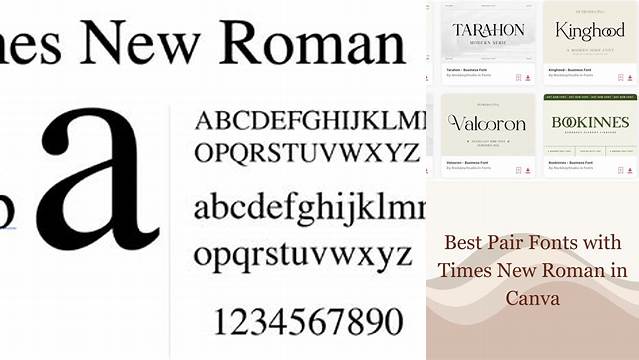
Best Free Fonts: Alternatives To Times New Roman
Finding the perfect font can sometimes feel like searching for a needle in a haystack, especially when you're aiming for that classic, timeless vibe similar to Times New Roman. Guys, let's be real, Times New Roman has been a staple for ages – from formal documents to printed books. But what if you're looking for something free that carries the same elegance and readability? Well, you're in luck! We’re diving deep into the world of free fonts that capture the essence of Times New Roman without costing you a dime. These fonts are not only accessible but also versatile, suitable for various projects ranging from professional reports to creative designs. Choosing the right font can significantly impact how your content is perceived, making it crucial to explore alternatives that offer both aesthetic appeal and functional readability. Whether you're a student, a professional, or a design enthusiast, having access to a range of high-quality, free fonts is invaluable. So, buckle up as we explore some fantastic options that will help you achieve that classic, sophisticated look without breaking the bank. Remember, the goal is to find fonts that not only mimic the style of Times New Roman but also offer unique characteristics that can enhance your overall design. Let's get started and discover the best free alternatives that will elevate your typography game!
Why Look for Alternatives to Times New Roman?
Okay, so Times New Roman is a classic, no doubt about it. But why even bother looking for alternatives? There are several reasons, and let's break them down. First off, while Times New Roman is widely available, it's good to have options. Relying solely on one font can make your work look generic. Exploring different fonts allows you to add a touch of originality and personality to your projects. This is especially important in fields like graphic design and marketing, where standing out from the crowd is essential. Moreover, some argue that Times New Roman, due to its ubiquity, has become somewhat overused and lacks a certain freshness. Finding a similar font can give your text a familiar yet updated feel. Plus, different fonts have different strengths. Some fonts might be more readable on screens, while others might look better in print. Depending on your specific needs, an alternative to Times New Roman might actually be a better fit. Also, let's not forget about licensing. While Times New Roman comes pre-installed on many systems, using it in commercial projects might have certain restrictions. Opting for a free and open-source font eliminates these concerns, giving you the freedom to use it however you like without worrying about legal issues. So, whether you're aiming for a fresh look, better readability, or simply more creative control, exploring alternatives to Times New Roman is a smart move. It's all about expanding your typographic toolkit and finding the perfect font that aligns with your vision and goals.
Key Characteristics of Times New Roman
Before we dive into the alternatives, let's pinpoint what makes Times New Roman so recognizable. Understanding its key characteristics will help you identify fonts that share its fundamental qualities. Times New Roman is primarily a serif font, meaning it has small decorative strokes (called serifs) at the end of each character. These serifs contribute to its readability, especially in large blocks of text, by guiding the eye along the lines. The font also has a relatively high contrast between thick and thin strokes, which adds to its visual appeal and clarity. Another defining feature is its relatively condensed letterforms, meaning the letters are narrower compared to some other fonts. This allows more text to fit on a page, which was particularly important when it was designed for newspaper printing. Furthermore, Times New Roman has a formal and traditional appearance, making it suitable for academic papers, legal documents, and other serious contexts. Its x-height (the height of the lowercase letters) is moderate, contributing to its overall balance and readability. In summary, the key characteristics of Times New Roman include its serif design, high contrast, condensed letterforms, formal appearance, and moderate x-height. When looking for alternatives, keep these elements in mind to ensure you find a font that captures the essence of Times New Roman while offering its own unique flair. By focusing on these characteristics, you can effectively narrow down your options and discover fonts that meet your specific needs and preferences. So, remember these points as we explore the best free fonts that emulate the timeless appeal of Times New Roman.
Top Free Font Alternatives
Alright, let's get to the good stuff! Here are some top-notch free font alternatives that capture the spirit of Times New Roman:
1. Libre Baskerville
Libre Baskerville is a fantastic free serif font that's optimized for body text. It's based on the American Type Founder's Baskerville, and it boasts excellent readability on screens. This makes it a superb choice for websites, e-books, and digital documents. Its elegant design and clear letterforms make it a strong contender for projects where you want a touch of sophistication without sacrificing clarity. Libre Baskerville is also open-source, meaning you can use it freely for both personal and commercial projects. This font provides a harmonious balance between traditional aesthetics and modern usability, making it a versatile option for various design needs. Its refined serifs and balanced proportions contribute to a polished and professional look. Whether you're working on a blog, a presentation, or a printed document, Libre Baskerville offers a reliable and visually appealing alternative to Times New Roman.
2. Bitter
Bitter is a slab serif font designed with readability in mind, especially on screens. While it's not a direct substitute for Times New Roman (which is a transitional serif), Bitter shares a similar level of clarity and legibility. Its robust design and slightly rounded serifs give it a friendly yet professional appearance. Bitter is an excellent choice for websites, apps, and other digital platforms where readability is paramount. It's also open-source, allowing you to use it freely in your projects. This font's strong character shapes and clear rendering make it easy on the eyes, even at small sizes. Bitter's unique personality sets it apart from more traditional serif fonts, while still maintaining a level of formality suitable for professional contexts. Whether you're designing a user interface or writing long-form content, Bitter provides a reliable and visually appealing option.
3. Arvo
Arvo is another excellent slab serif option that offers a contemporary twist on traditional serif fonts. Its geometric design and strong serifs give it a distinctive and memorable appearance. Arvo is highly readable and works well in both print and digital environments. It's a great choice for headlines, body text, and branding materials. Plus, it's open-source, so you can use it without any licensing restrictions. This font's clean lines and balanced proportions make it a versatile option for a wide range of design projects. Its unique character shapes add personality to your text, while still maintaining a professional and polished look. Whether you're creating a logo, designing a website, or writing a report, Arvo offers a fresh and modern alternative to Times New Roman.
4. Playfair Display
If you're looking for something with a bit more flair, Playfair Display is an excellent choice for headings and titles. This free font has a high contrast and delicate serifs, giving it an elegant and sophisticated appearance. While it's not ideal for body text due to its intricate design, Playfair Display can add a touch of class to your headings and titles. It's also open-source, making it a freely available option for your design projects. This font's refined letterforms and graceful curves make it a standout choice for creating visually striking designs. Its unique personality adds a touch of luxury and sophistication to any project. Whether you're designing a poster, creating a website header, or crafting a stylish invitation, Playfair Display offers a beautiful and eye-catching alternative to traditional serif fonts.
5. Lora
Lora is a well-balanced serif font that combines contemporary appeal with roots in calligraphy. It is a contemporary serif font with roots in calligraphy. Designed to be equally readable in print and on screen, Lora is a versatile option for body text. Its brushed curves and balanced letterforms create a harmonious reading experience, making it suitable for articles, blog posts, and books. Additionally, it’s open-source, ensuring its free use for both personal and commercial endeavors. Its moderate contrast and sturdy serifs enhance its legibility, even at smaller sizes, while its distinctive personality adds a touch of elegance to any design. Lora is a reliable choice for projects that demand a blend of sophistication and readability, providing a modern twist on classic serif aesthetics.
How to Choose the Right Font
Choosing the right font is crucial for effective communication and visual appeal. Here are some tips to help you make the best choice: First, consider your project's purpose. What message are you trying to convey? A formal document might require a more traditional serif font, while a creative project might benefit from a more playful sans-serif font. Think about your target audience. Who are you trying to reach? Different fonts appeal to different demographics. A young audience might appreciate a modern and trendy font, while an older audience might prefer a more classic and familiar font. Ensure readability. The font should be easy to read, both on screen and in print. Avoid overly decorative or complex fonts that can strain the eyes. Test your font at different sizes and in different contexts to ensure it remains legible. Pay attention to the font's personality. Does it convey the right tone and mood? A font can be serious, playful, elegant, or casual. Choose a font that aligns with your brand's identity and values. Consider the font's compatibility. Does it work well with other fonts? Choose fonts that complement each other and create a harmonious visual hierarchy. Use online tools and resources to experiment with different font combinations. Don't be afraid to experiment. Try out different fonts and see what works best for your project. Get feedback from others to get a fresh perspective. Remember, the goal is to choose a font that enhances your message and makes your content more engaging and effective. By considering these factors, you can confidently select the perfect font for your needs.
So, there you have it! A rundown of some of the best free fonts that give you a Times New Roman vibe without the cost. Remember, the key is to find a font that not only looks good but also fits the purpose of your project. Whether you're writing a formal report, designing a website, or creating marketing materials, the right font can make all the difference. Don't be afraid to experiment and try out different options until you find the perfect fit. And remember, all the fonts we've discussed are free to use, so you can explore them without any financial risk. Happy designing, and may your typography always be on point!